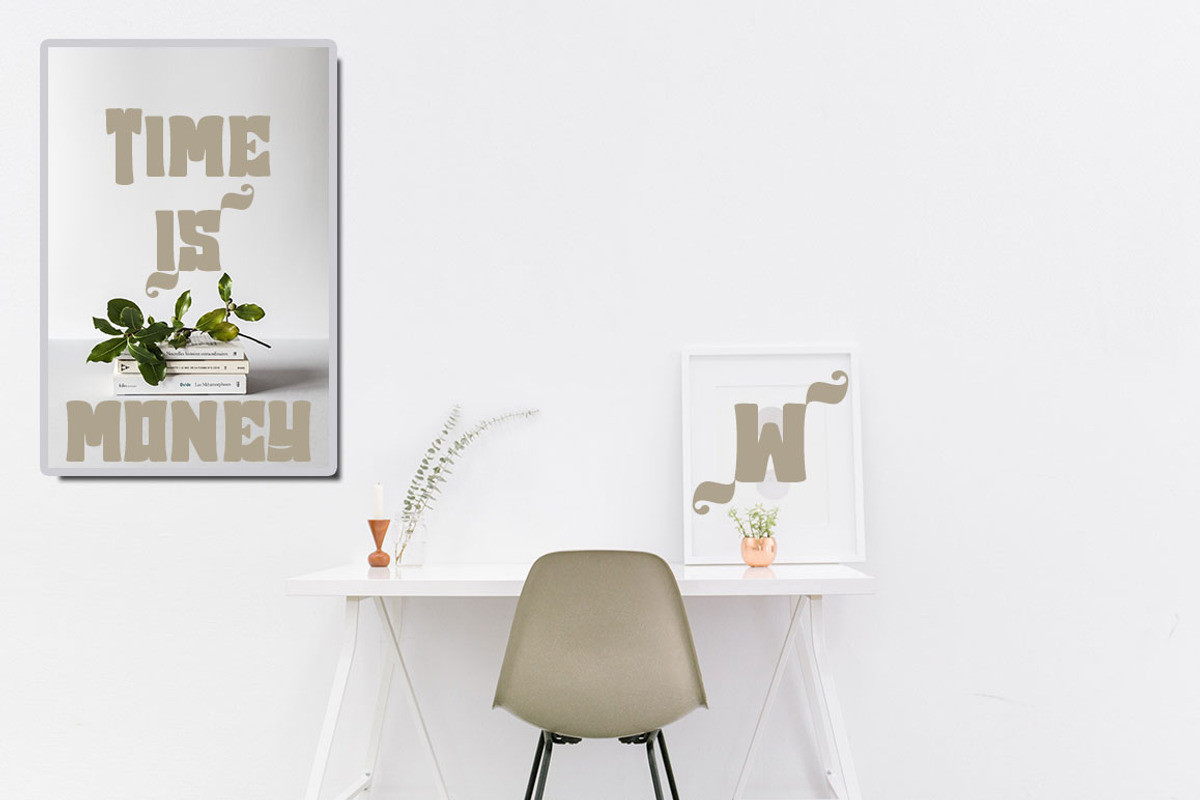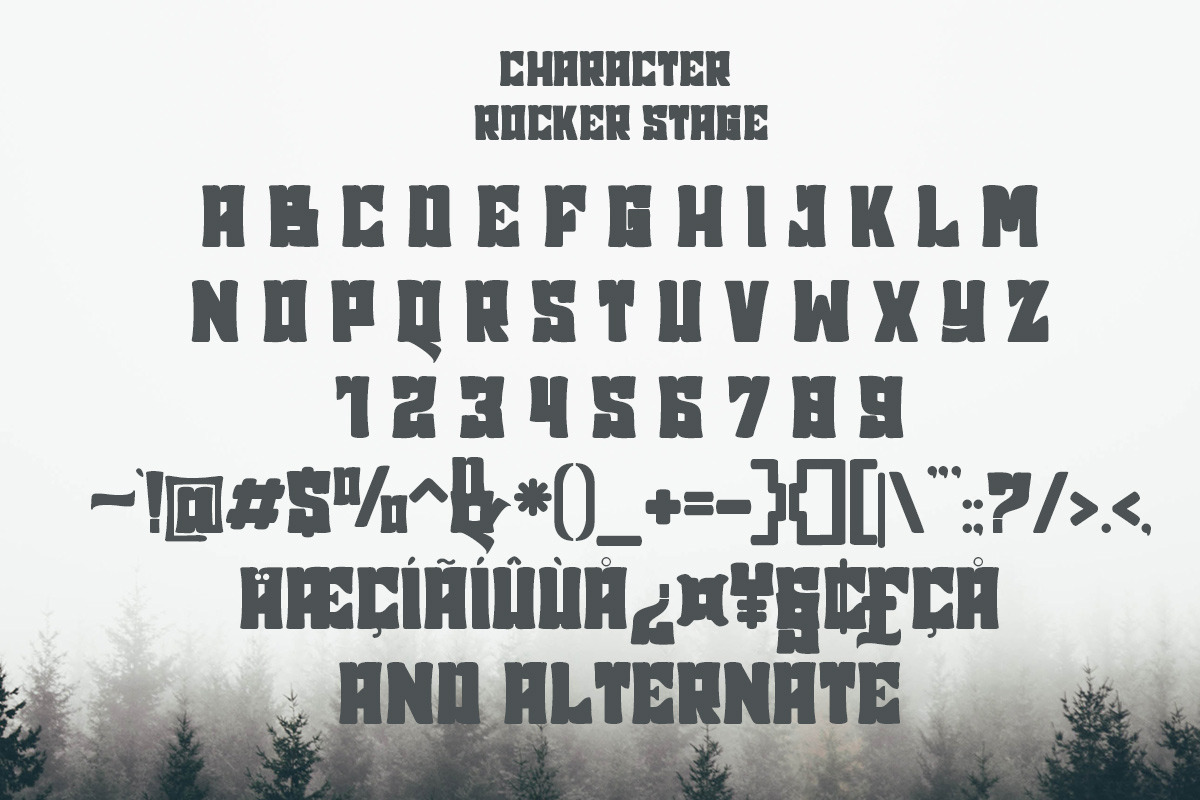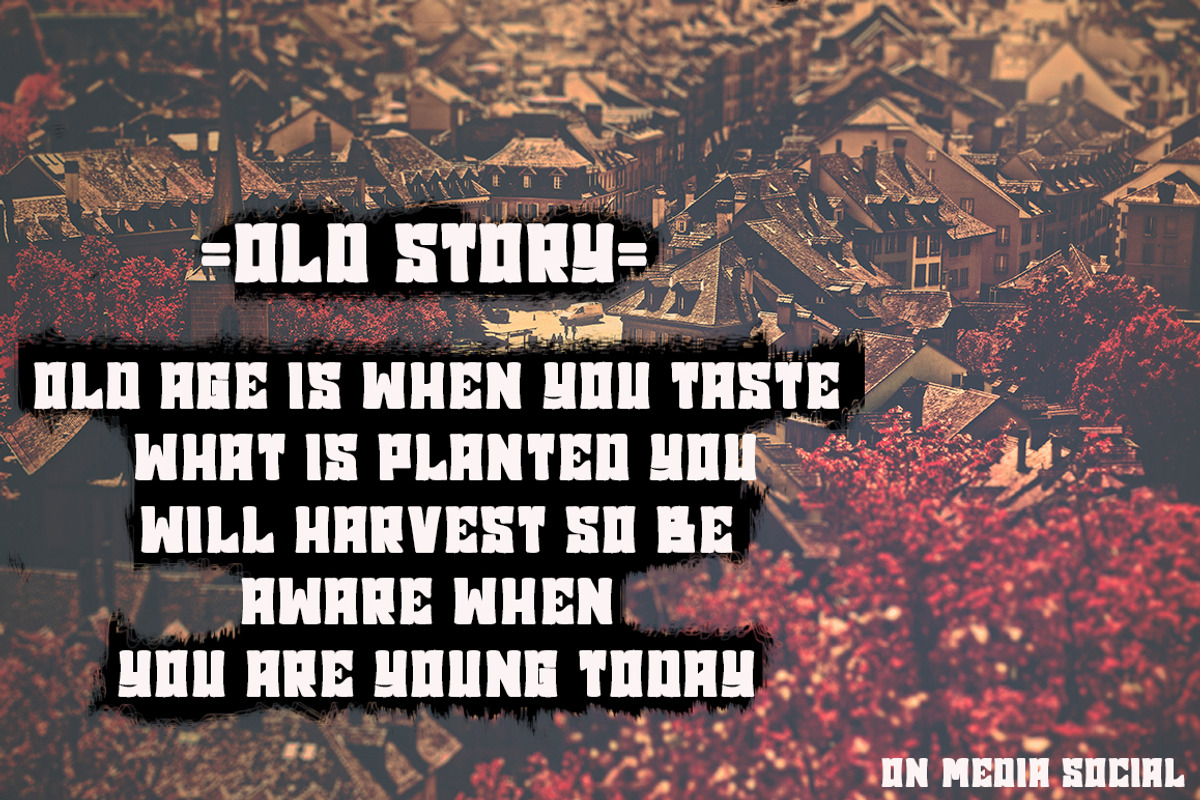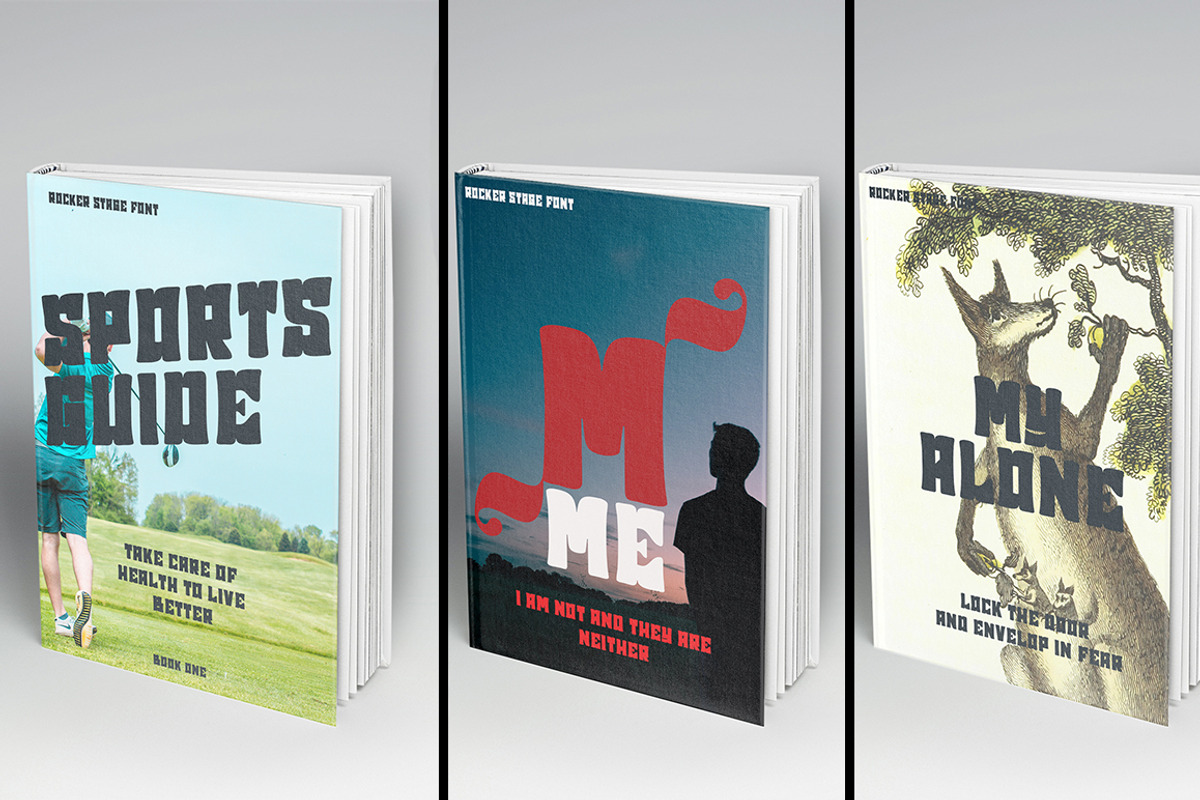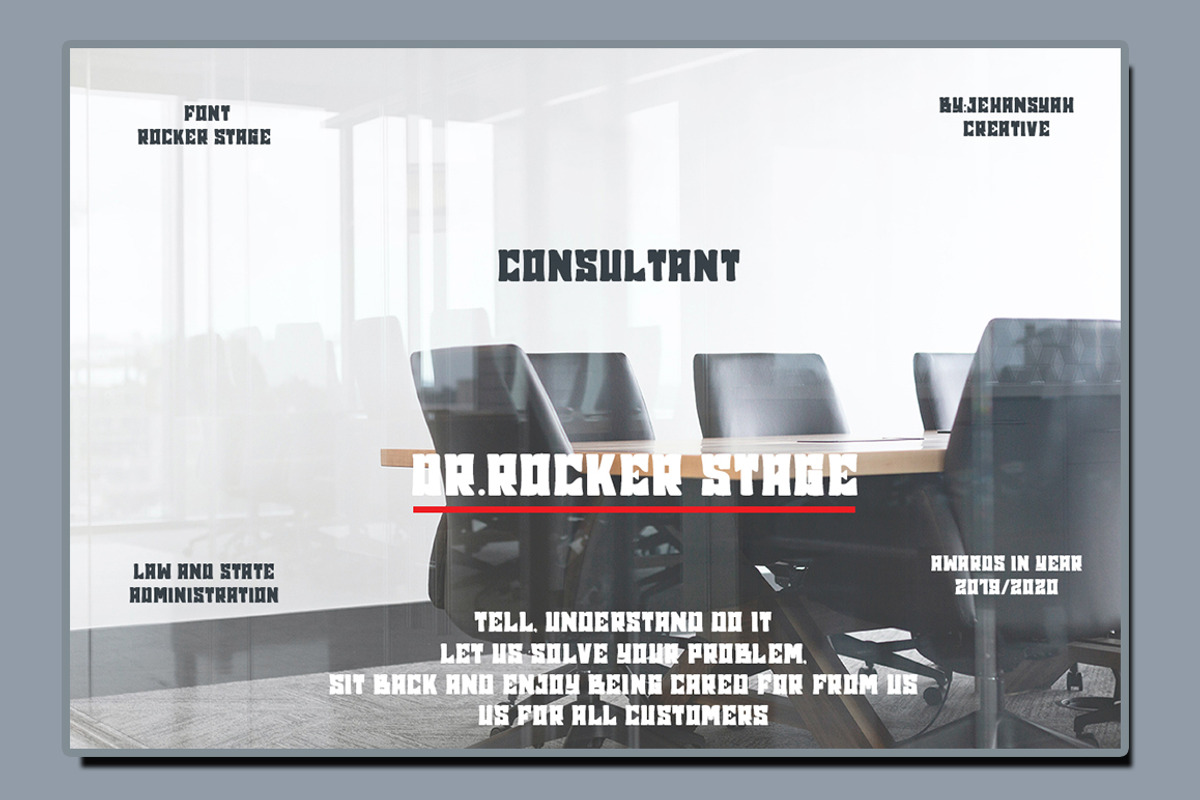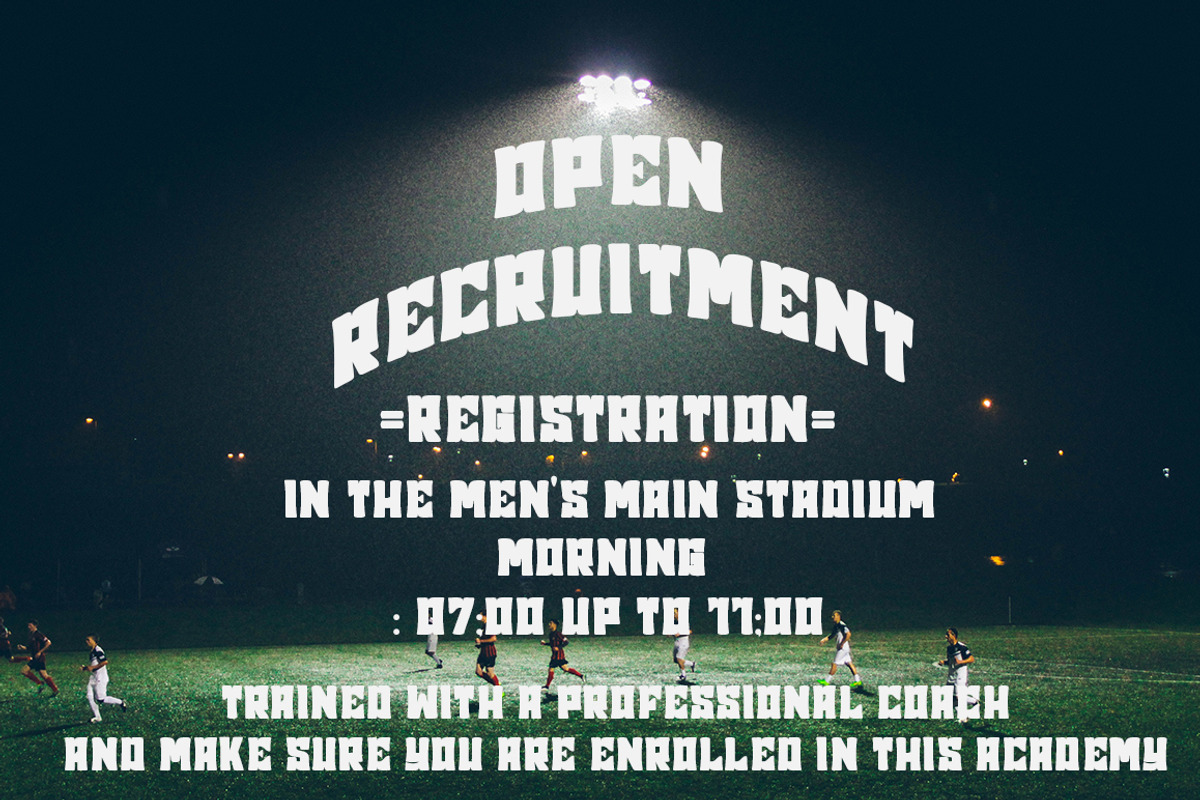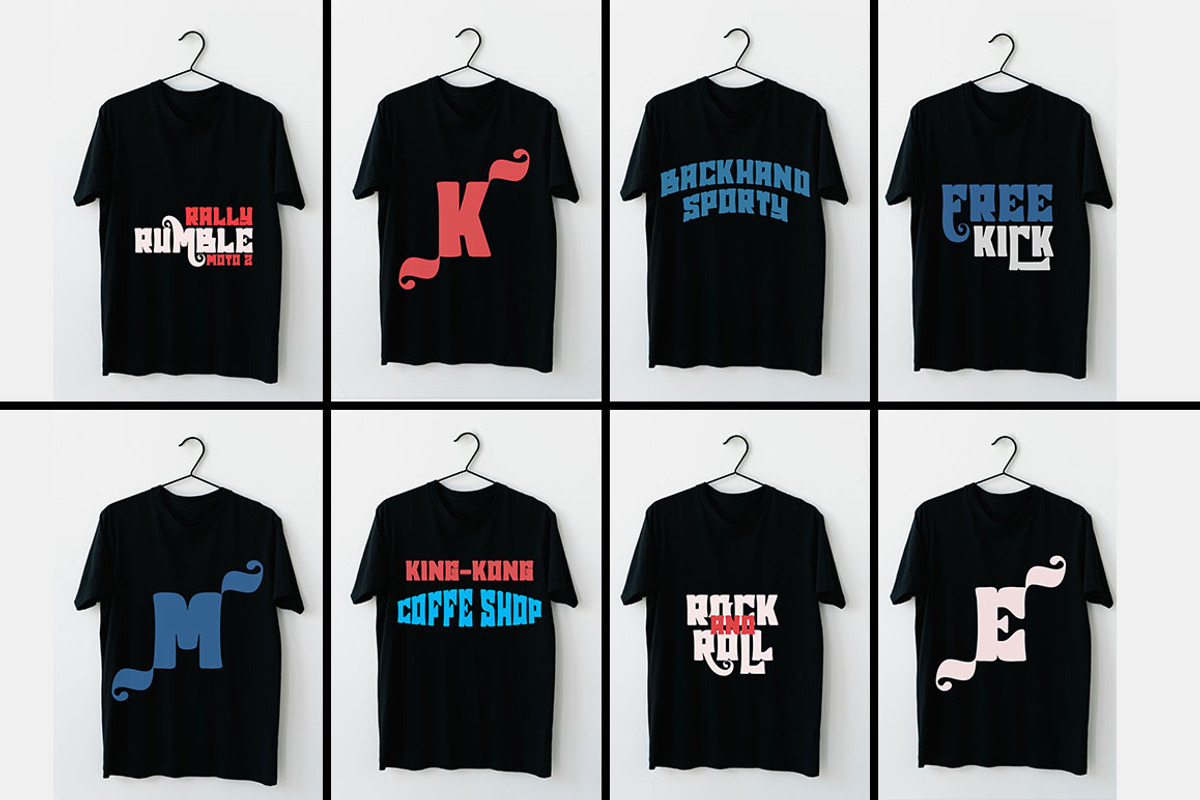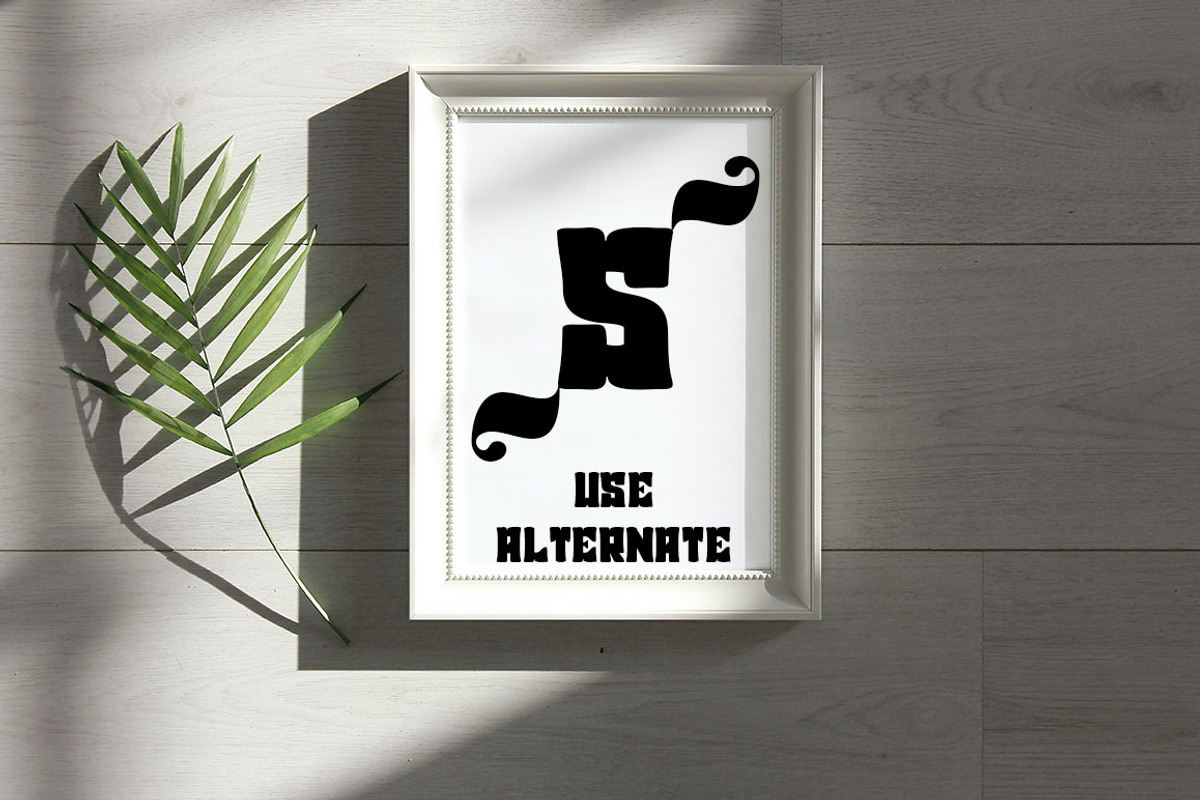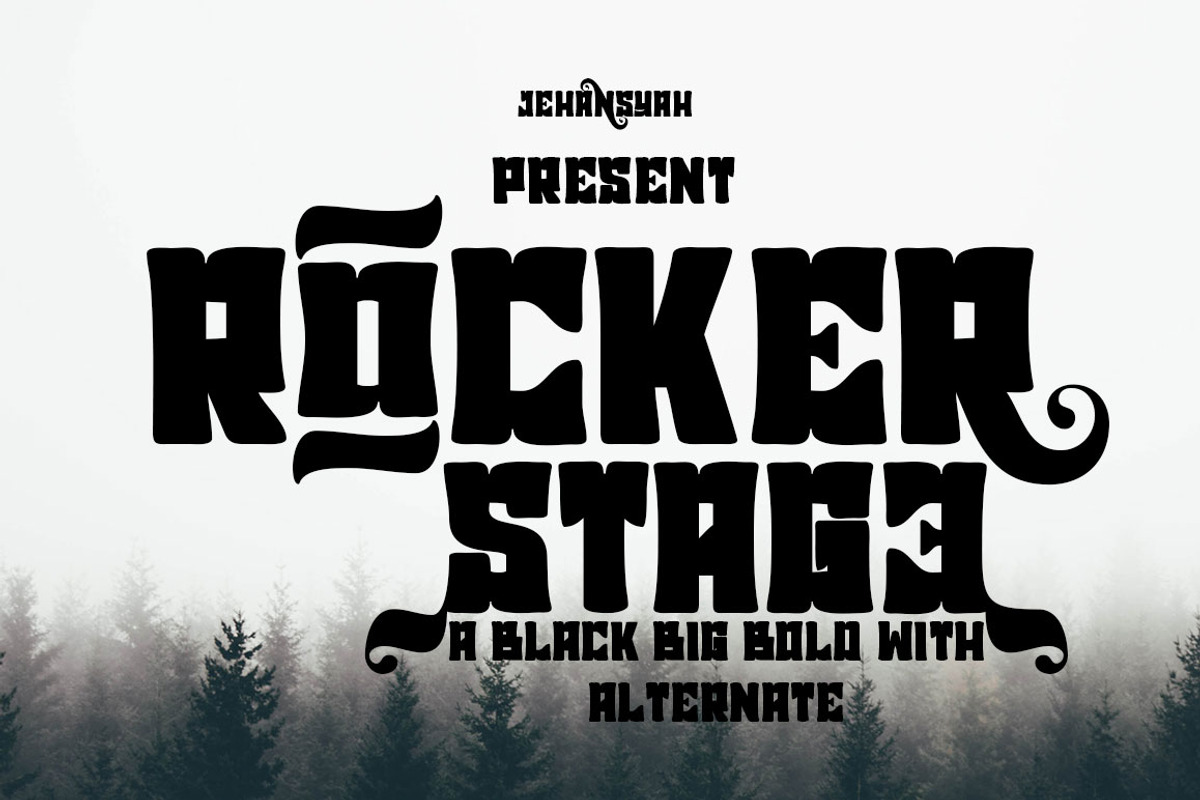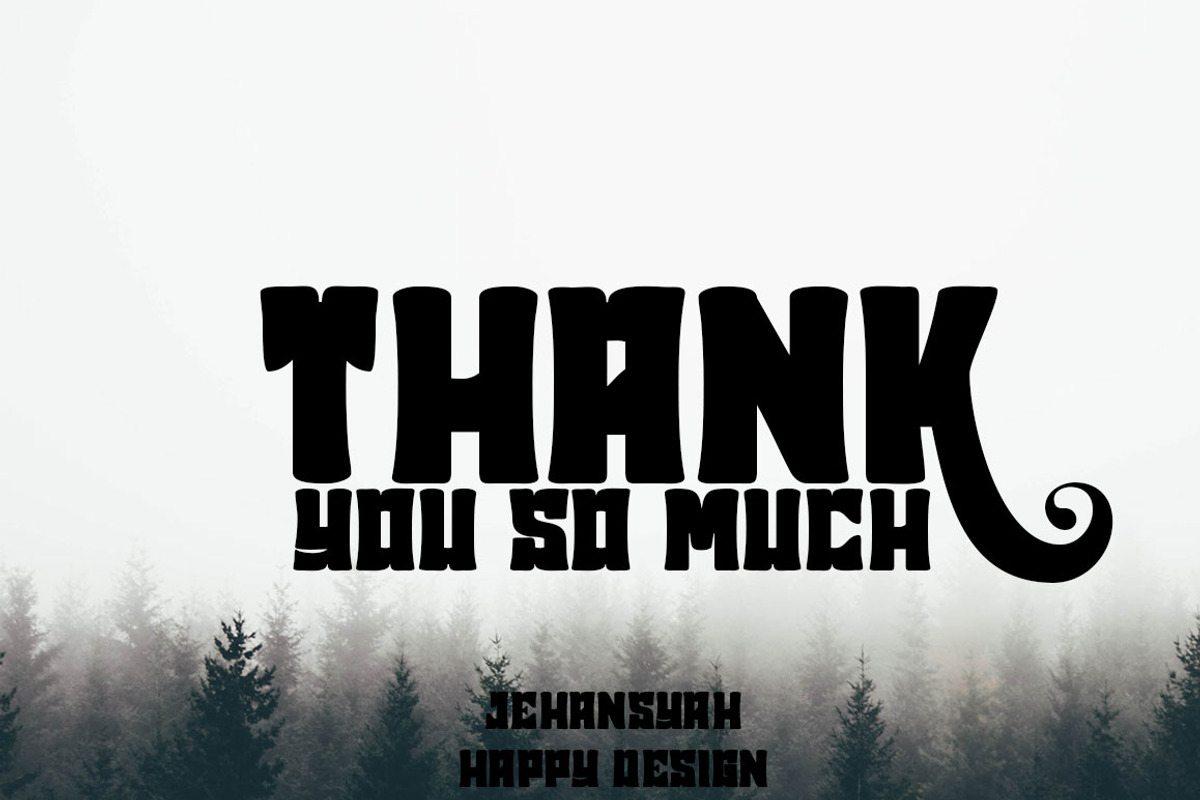
Rocker stage
Rocker stage This bold font is a very unique and bold love for all dashing looks, a lot of design work uses bold fonts as titles or clear descriptions for easy reading.
Inspired by print media and old magazine collections, as well as simple clothing designs we try to give a more bold and dashing touch
Rocker stage include
numeric
alternate
latin